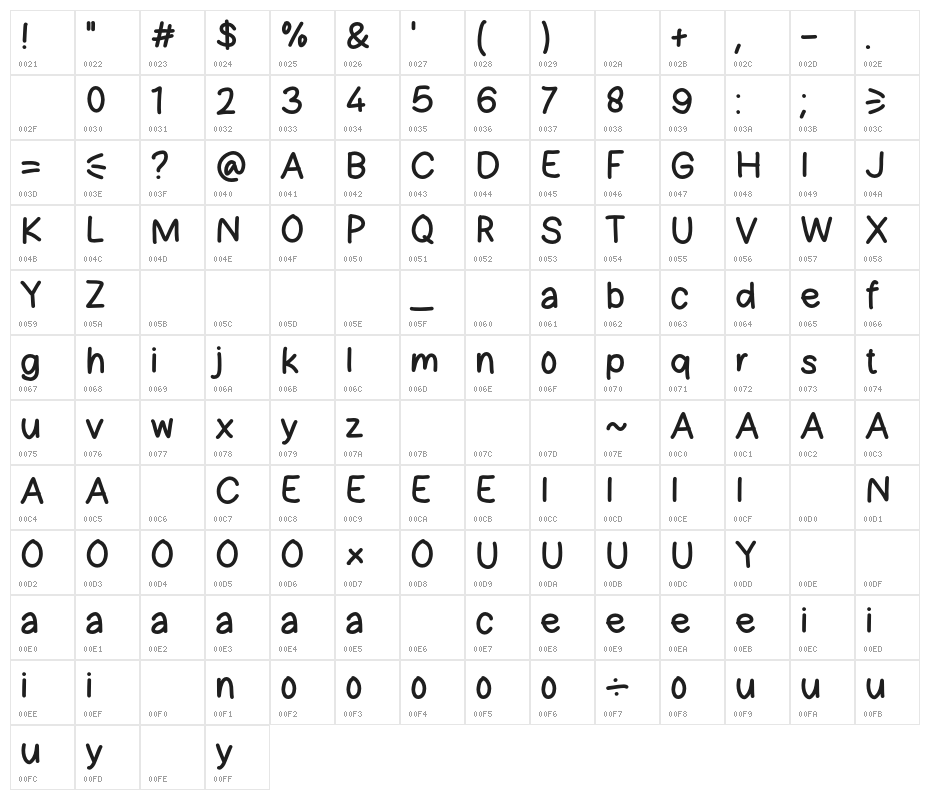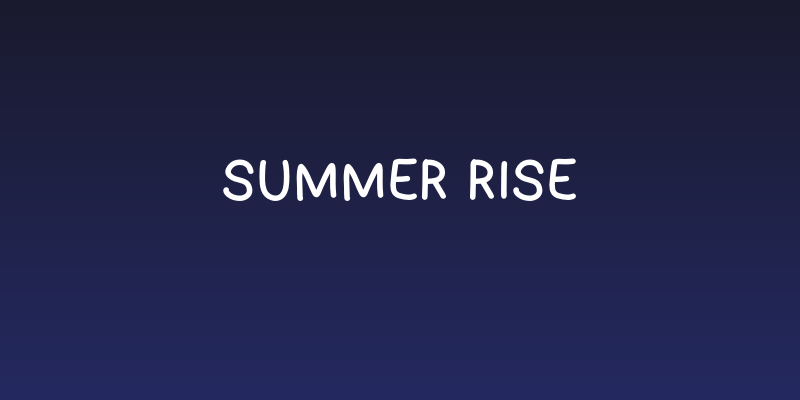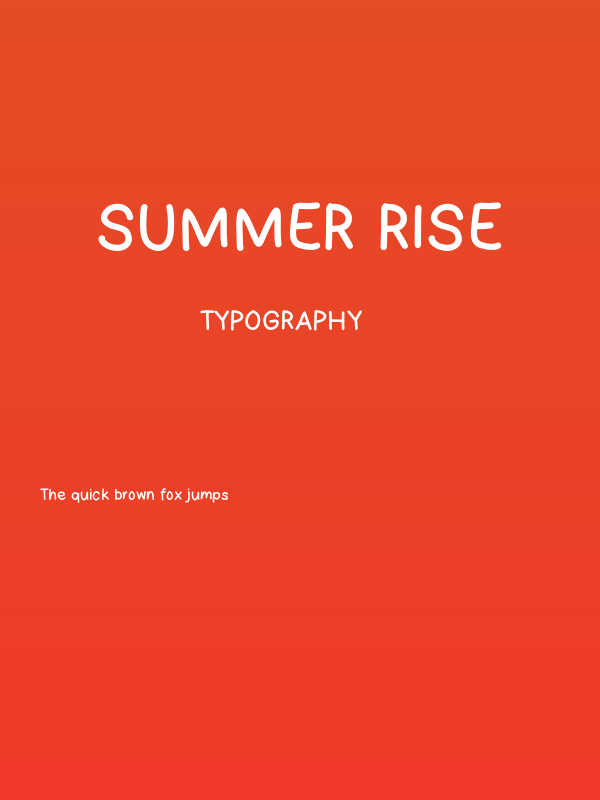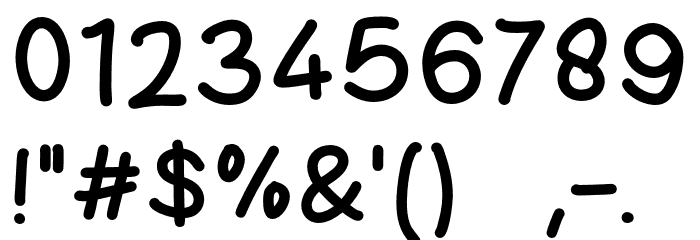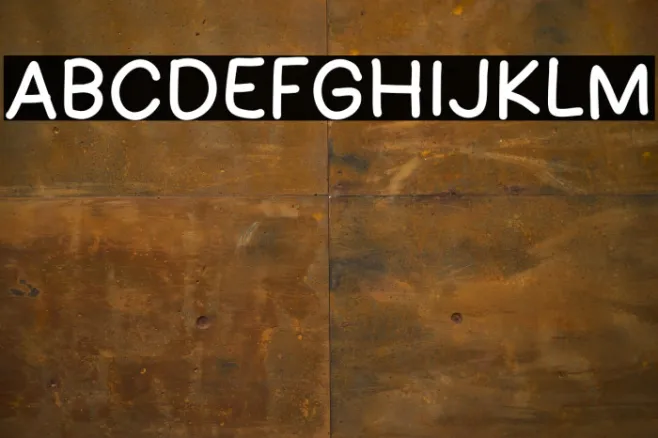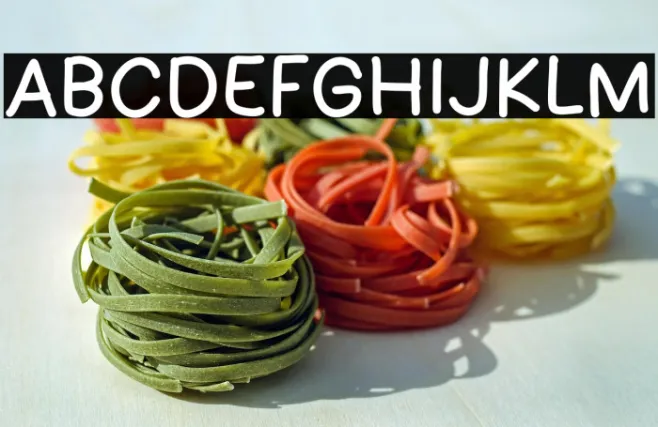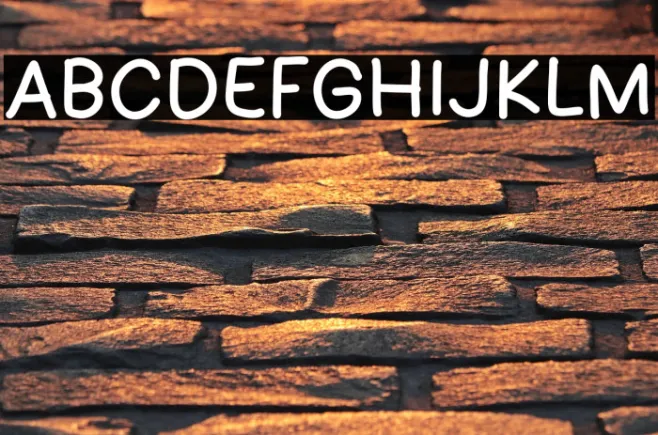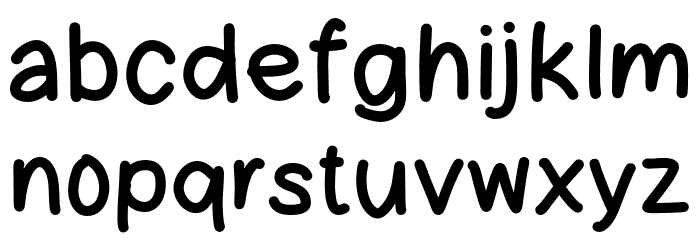
Summer Rise Font
Summer Rise Description
This font features a playful and casual handwritten style, characterized by its rounded and slightly irregular letterforms. The strokes are consistent in thickness, giving it a uniform appearance while maintaining a friendly and approachable vibe. The uppercase and lowercase letters are well-balanced, with a slight tilt that adds to the informal feel. Numbers and special characters are designed to match the overall aesthetic, making it versatile for various uses. The font's simplicity and charm make it suitable for projects that require a personal touch.
| Use Case | Headlines, Informal text, Branding |
| Proposed Projects | Ideal for greeting cards, children's books, casual branding, and social media graphics. |